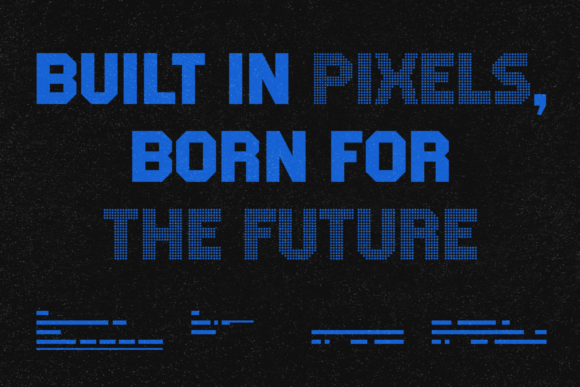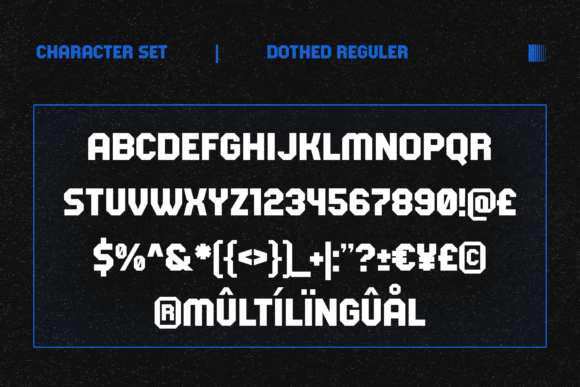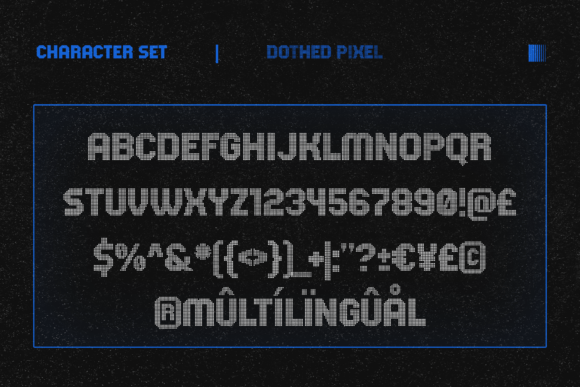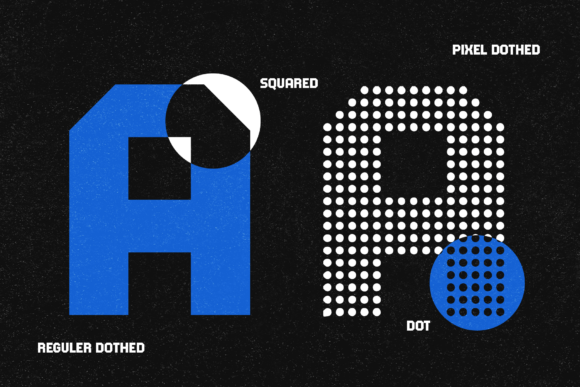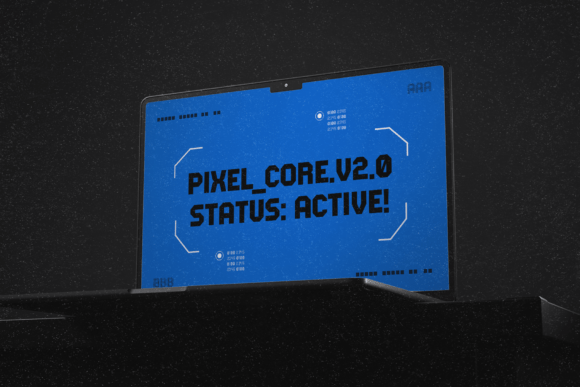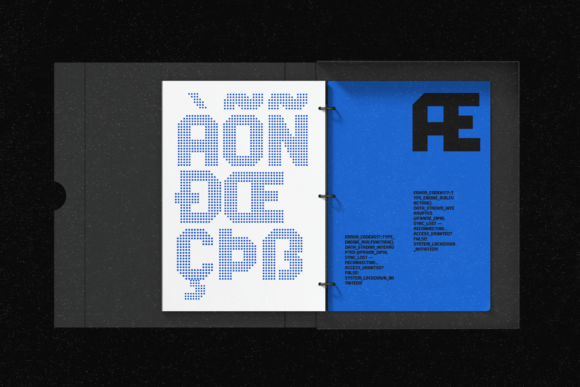
Introducing Dothed Font: The Ultimate Dual-Style Font for Modern Designers
In the world of typography, fonts play a crucial role in shaping the visual identity of a design. With the ever-evolving landscape of digital design, it’s essential to have fonts that can adapt to various styles and themes. This is where Dothed Font comes in – a game-changing dual-style font that combines modern simplicity with retro digital charm.
What is Dothed Font?
Dothed is a unique font family that offers two distinct styles: Regular and Pixel. This dual-style font is designed to provide flexibility and character to your designs, making it perfect for a wide range of applications, from logos and posters to games and digital projects.
The Regular Style: Clean Readability
The Regular style of Dothed Font is designed for clean readability. Its modern simplicity makes it ideal for body text, headings, and titles where clarity is essential. The font’s sleek lines and curves create a sophisticated look that’s perfect for designs that require a professional touch.
The Pixel Style: Playful and Tech-Inspired Accents
The Pixel style of Dothed Font is where things get interesting. This style adds a retro digital charm to your designs, making it perfect for playful and tech-inspired accents. The Pixel style is ideal for creating eye-catching graphics, icons, and logos that require a bold and edgy look.
Why Choose Dothed Font?
So, why choose Dothed Font over other fonts? Here are a few reasons:
- Flexibility: With two distinct styles, Dothed Font offers unparalleled flexibility. You can use the Regular style for body text and switch to the Pixel style for headings or accents.
- Character: Dothed Font has a unique personality that sets it apart from other fonts. Its blend of modern simplicity and retro digital charm makes it perfect for designs that require a bit of character.
- Readability: The Regular style of Dothed Font is designed for clean readability, making it perfect for body text and headings.
- Customization: With Dothed Font, you can mix and match the Regular and Pixel styles to create a unique look that’s all your own.
Use Cases for Dothed Font
So, what can you use Dothed Font for? The possibilities are endless:
- Logos: Use Dothed Font to create a unique and memorable logo that stands out from the crowd.
- Posters: Create eye-catching posters with Dothed Font’s bold and playful style.
- Games: Add a touch of personality to your game with Dothed Font’s Pixel style.
- Branding: Use Dothed Font to create a consistent brand identity that stands out from the competition.
- Digital Projects: From social media graphics to website headers, Dothed Font is perfect for any digital project that requires a bit of character.
In conclusion, Dothed Font is a game-changing dual-style font that’s perfect for modern designers. Its unique blend of modern simplicity and retro digital charm makes it ideal for a wide range of applications. With its flexibility, character, readability, and customization options, Dothed Font is a must-have for any designer looking to elevate their designs.